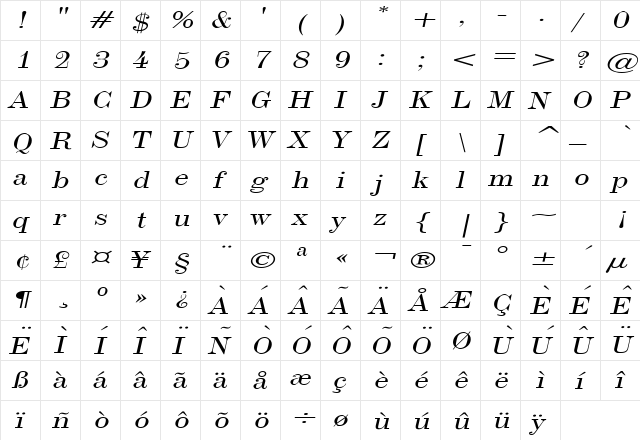
Indy 17 Extended Italic Font Preview
Indy 17 Extended Italic
Indy 17 Extended Italic Font Details
Design Context for Indy 17 Extended Typeface
Indy 17 Extended offers clean, dependable letterforms without strong stylistic allegiance, making it a practical choice for designers who need flexibility. The dynamic lean of this cut emphasises speed and emphasis in any layout.
Pro Tip: Try Indy 17 Extended for annotation and caption copy alongside an upright companion — the contrast in angle creates a dynamic but ordered typographic system.